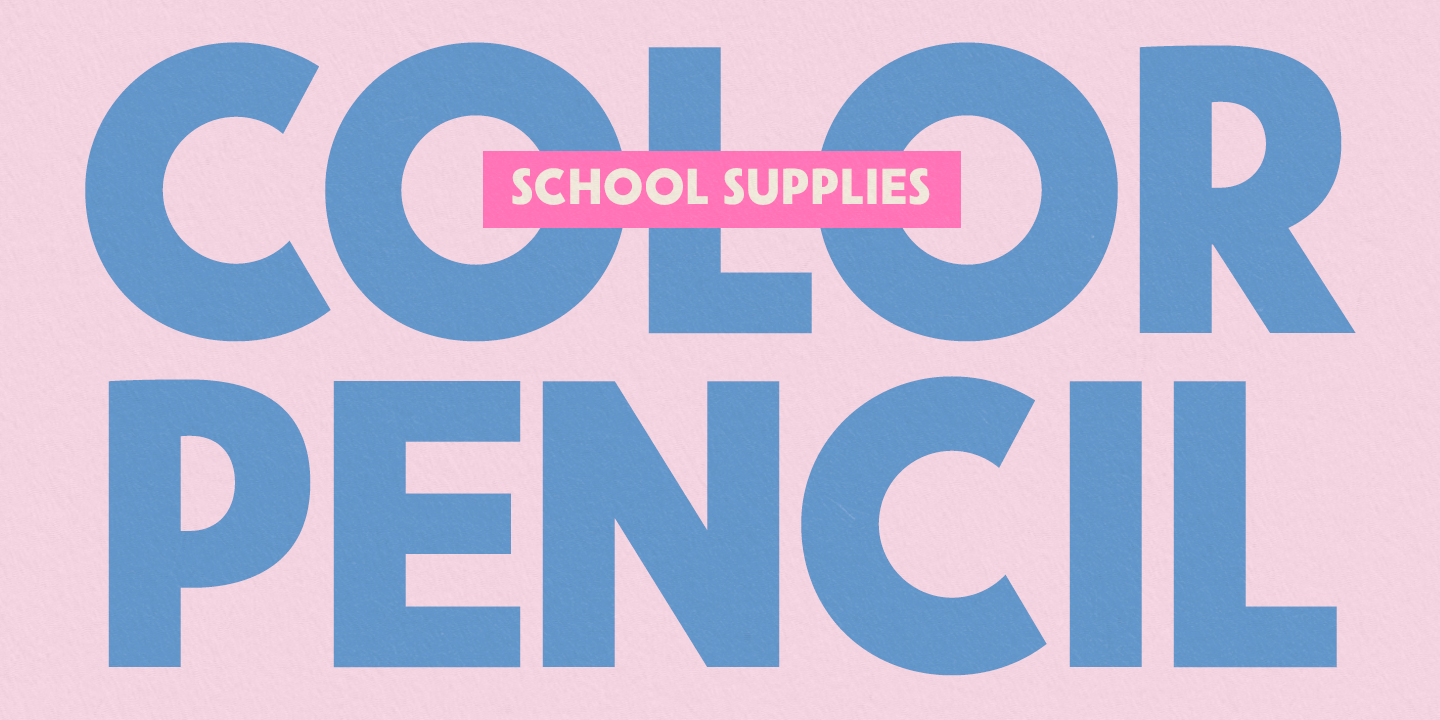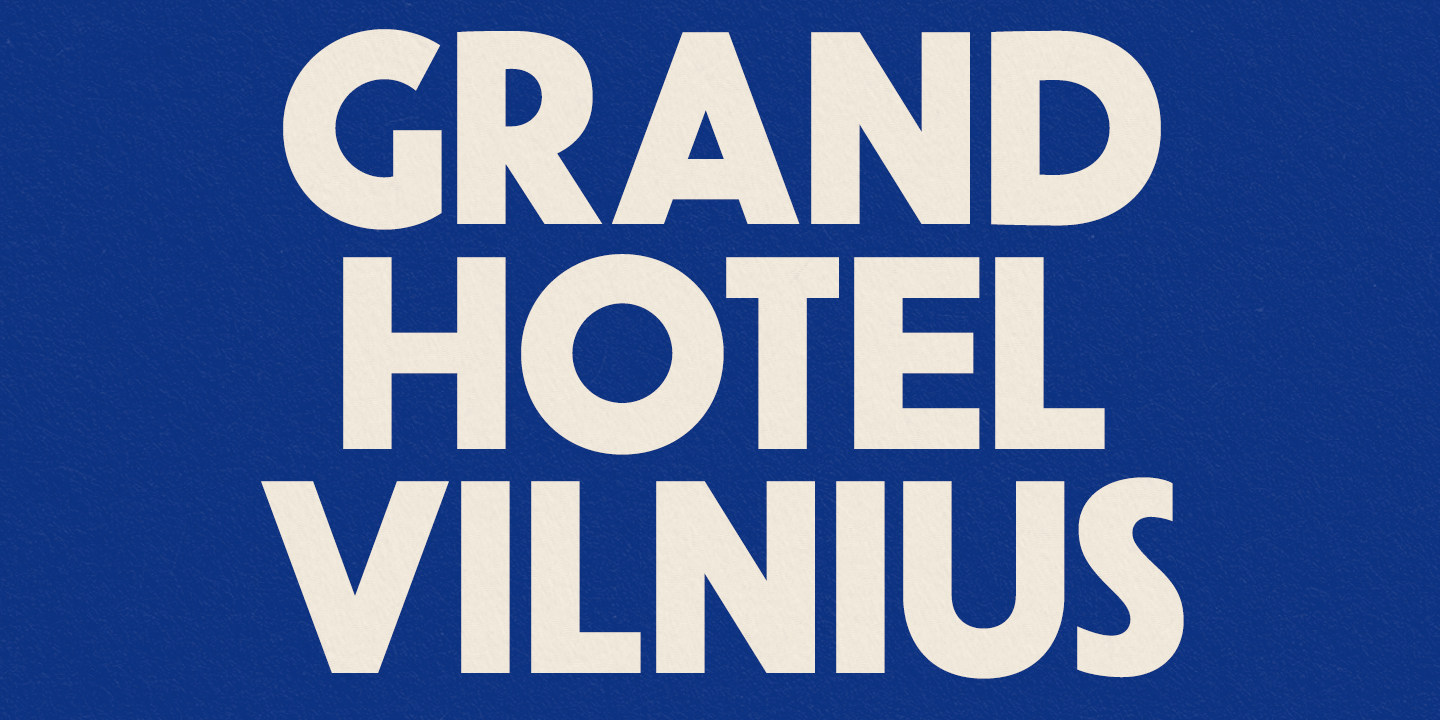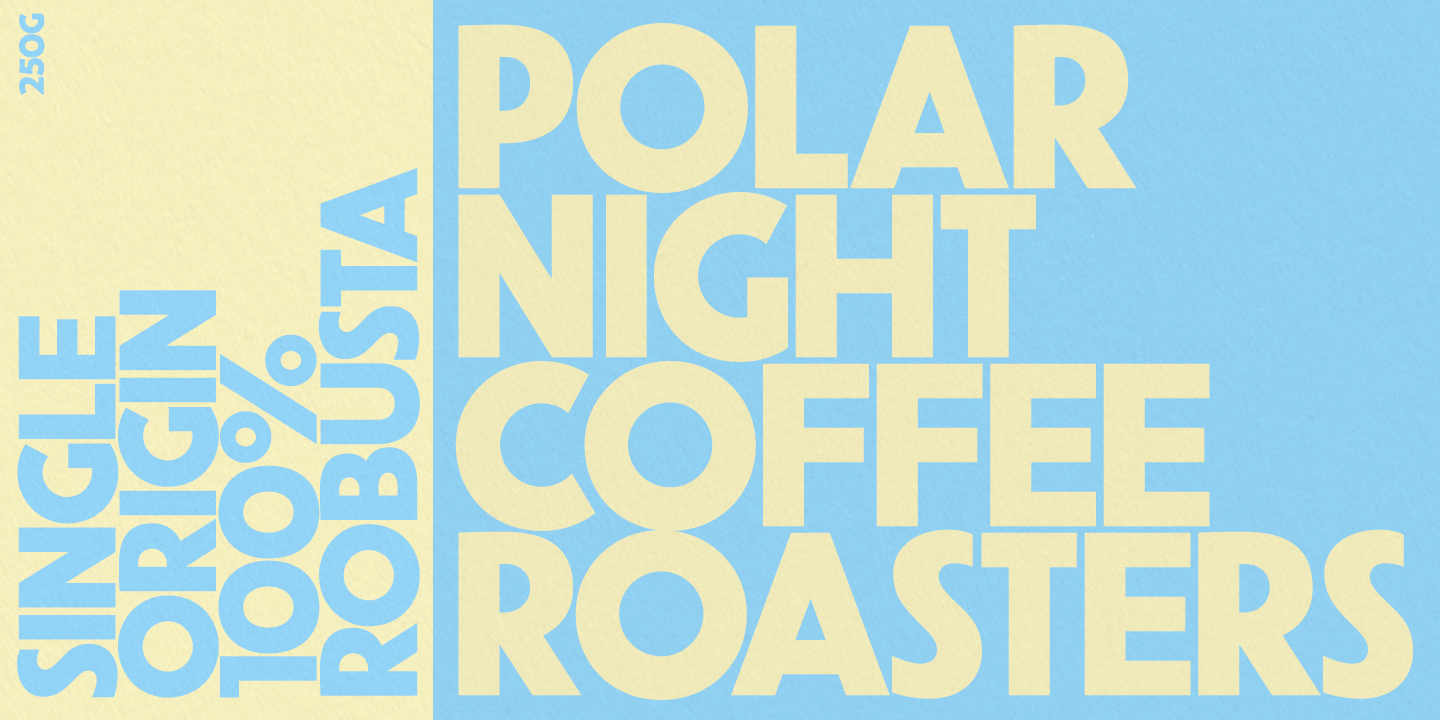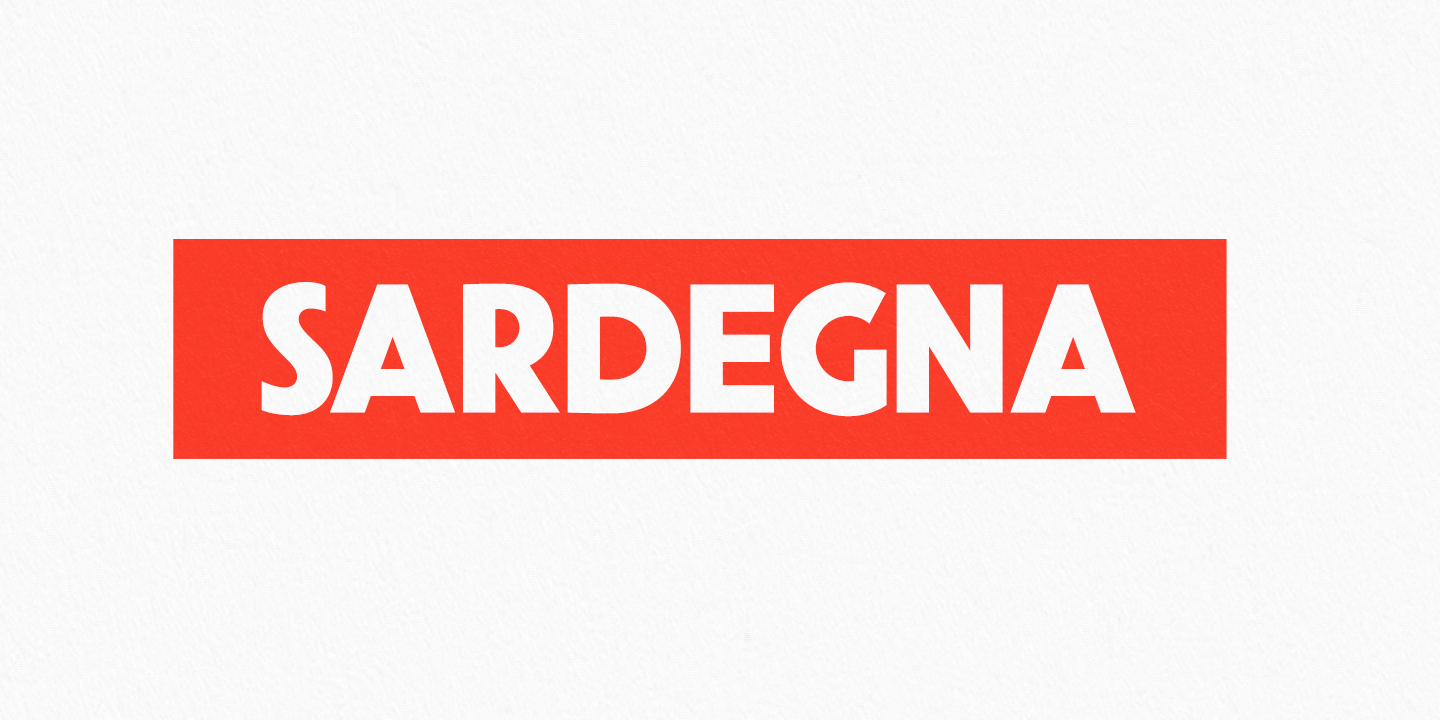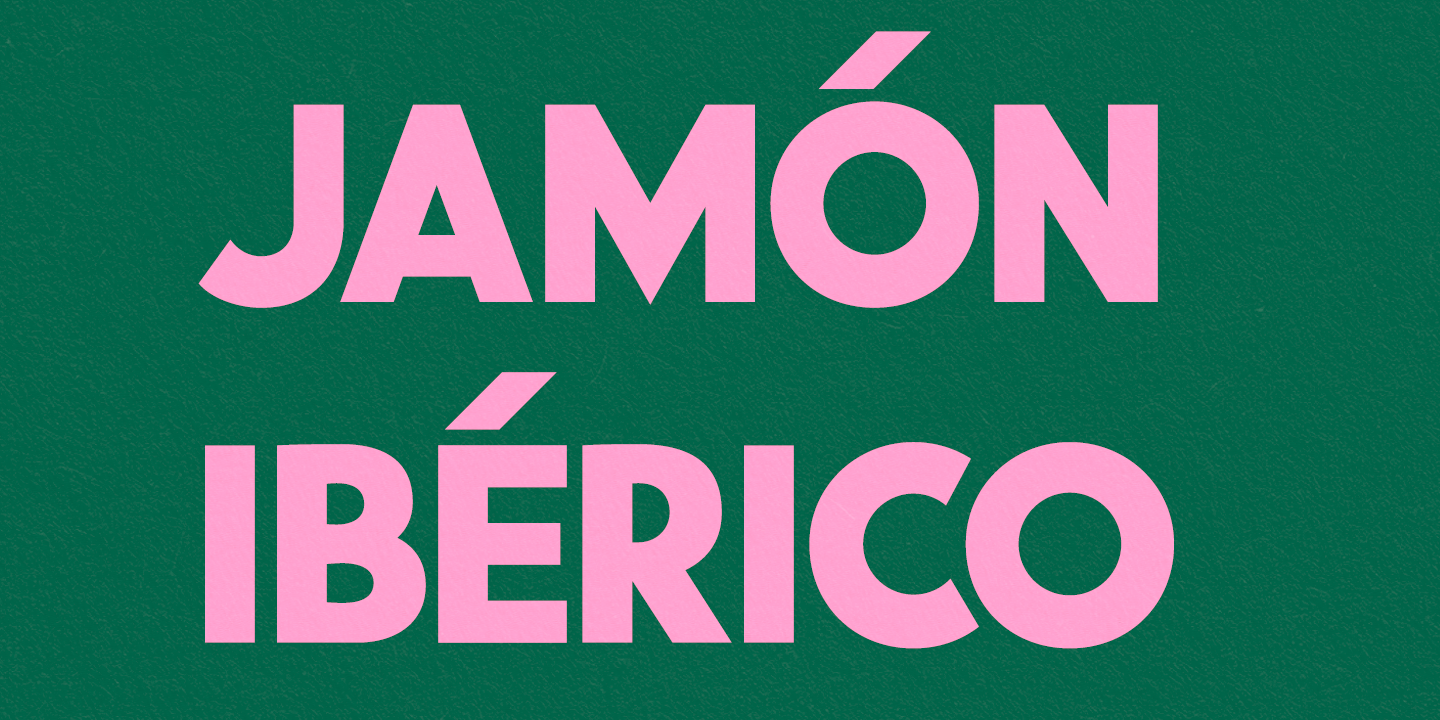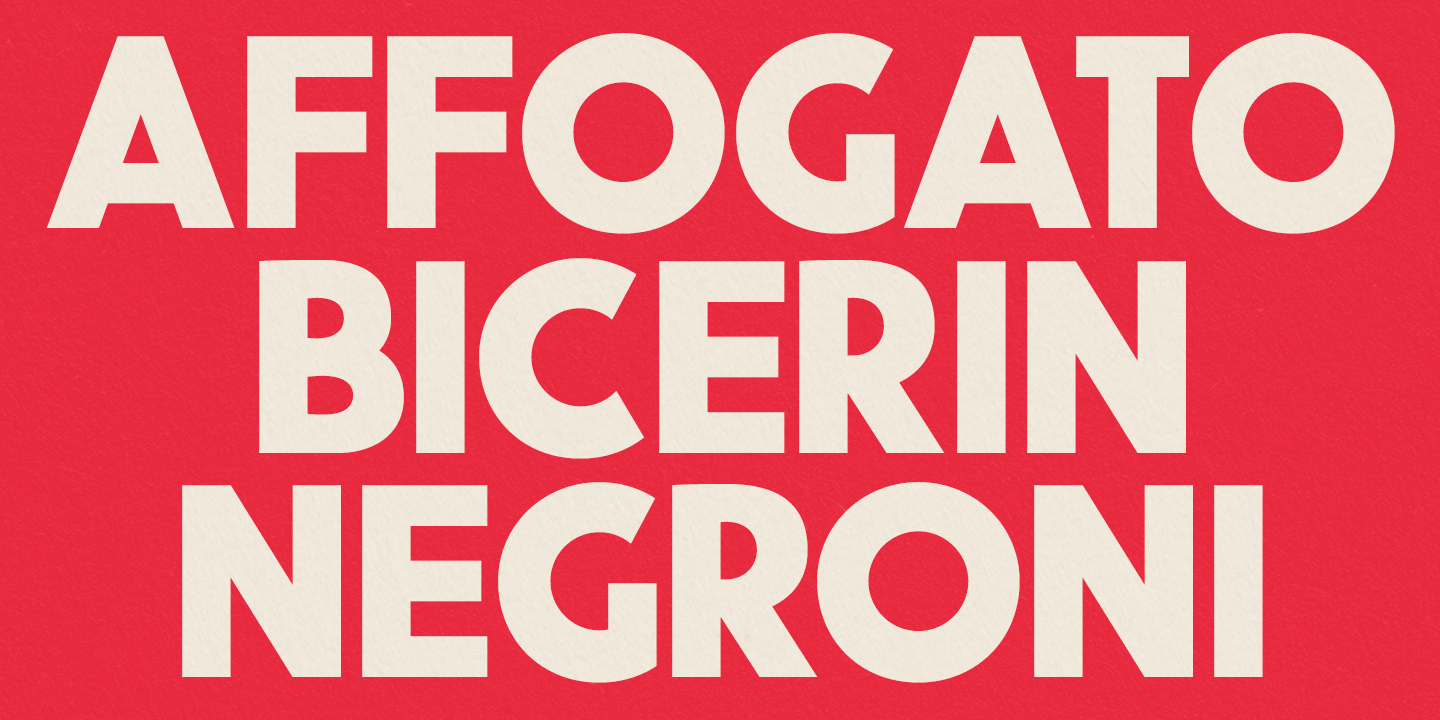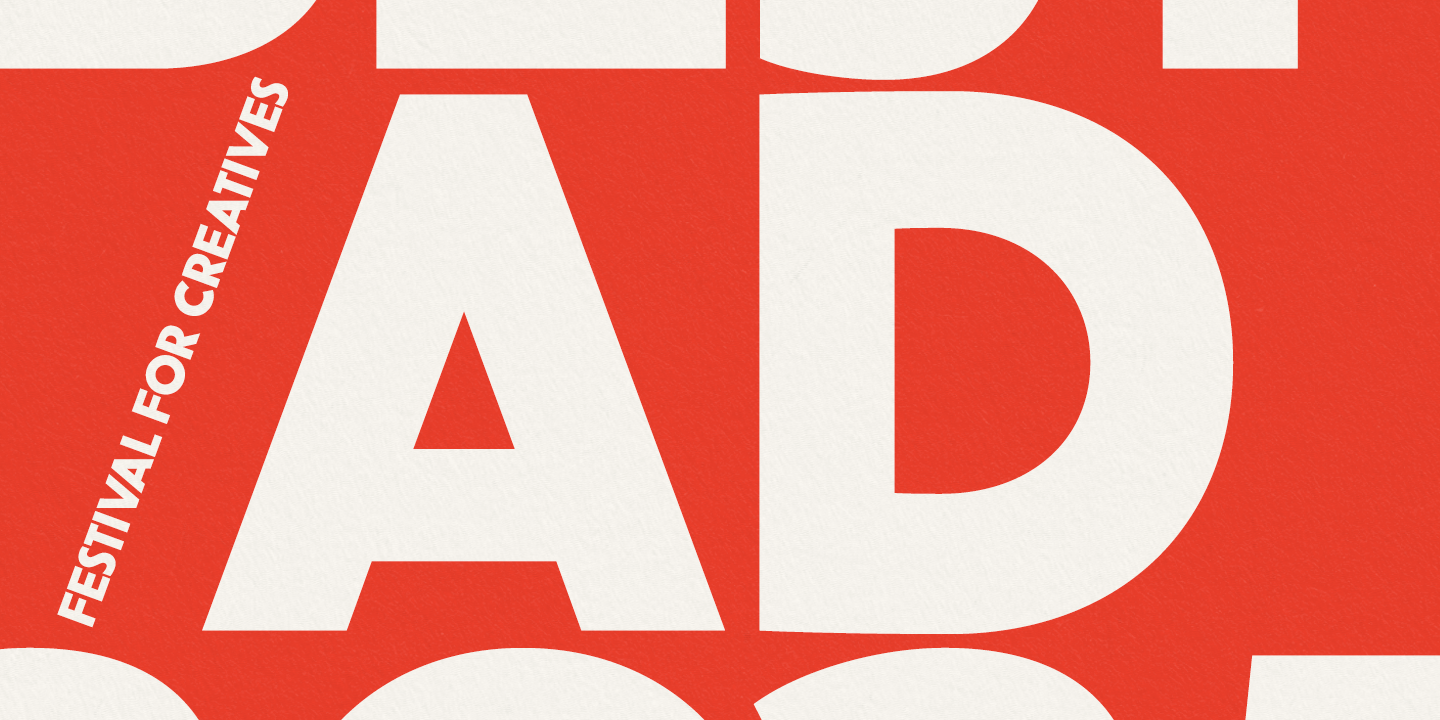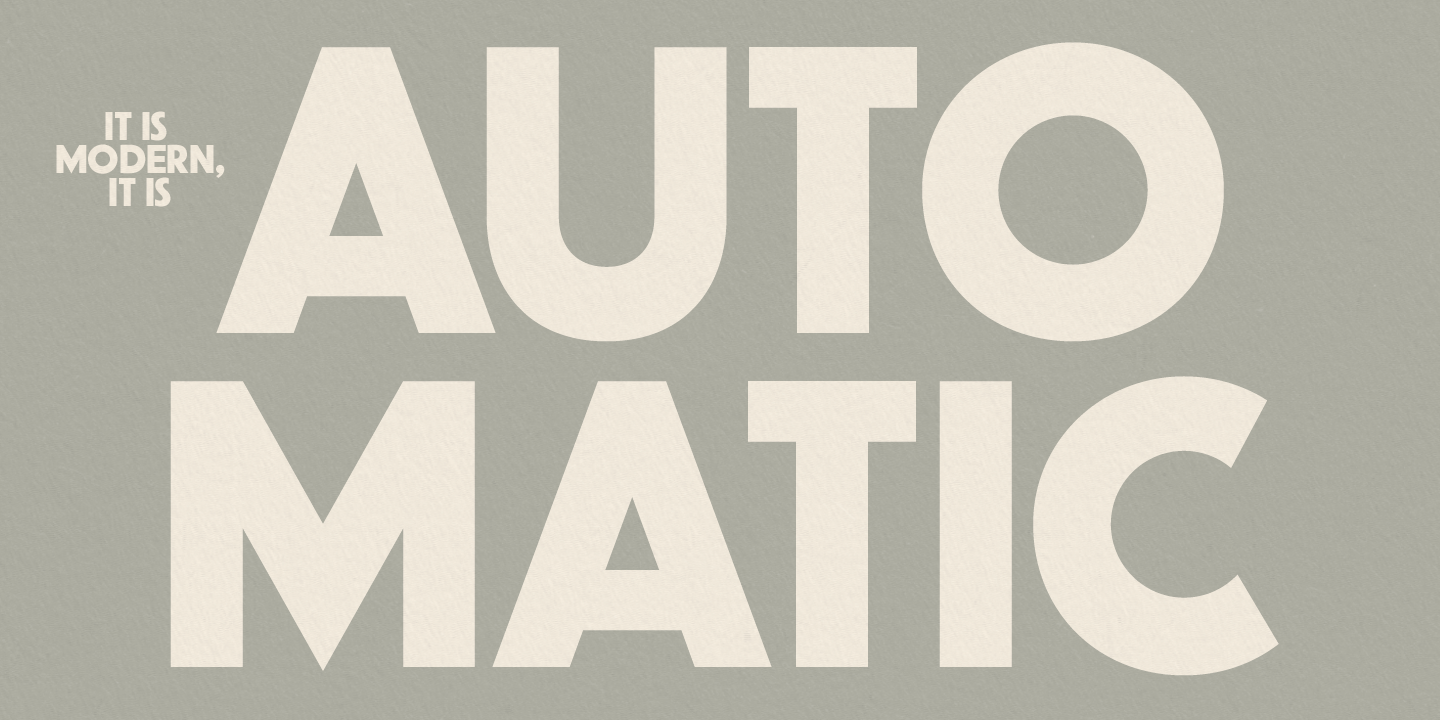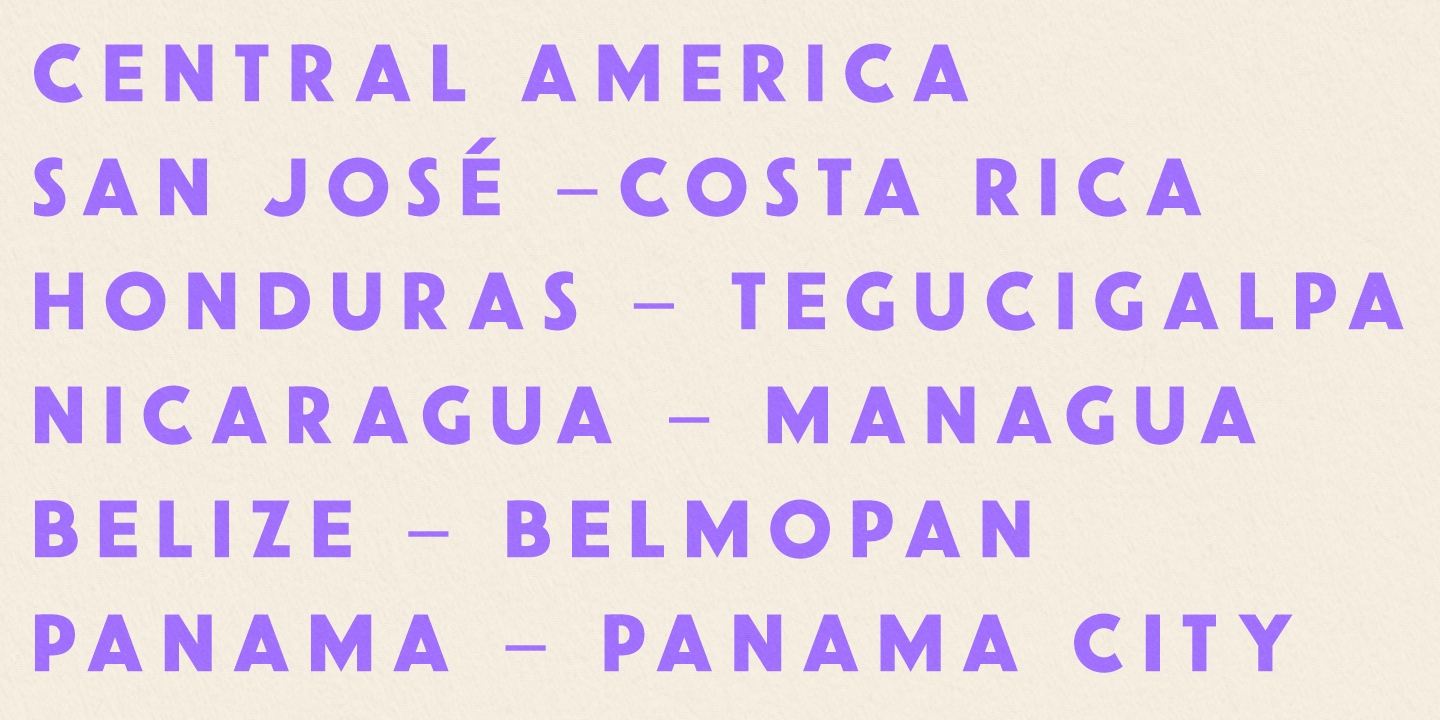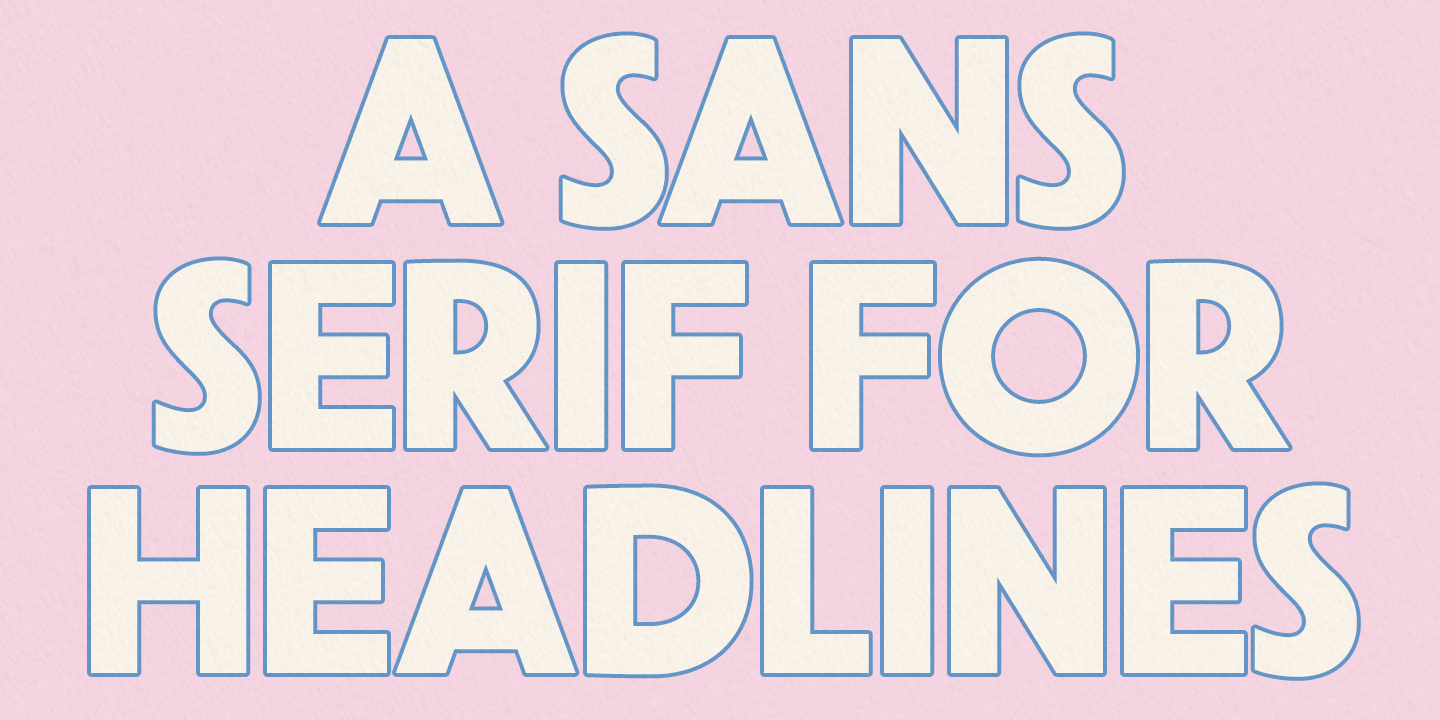
Common Goods
Common Goods is a bold, straightforward headline Sans Serif inspired by the modernist typography of the last century.
Common Goods is a blend of geometry and small hand crafted details to express strict form with a touch of warm personality.
Common Goods has a wide language support and Stylistic Alternates for more geometric quotemarks, comma and semicolon.